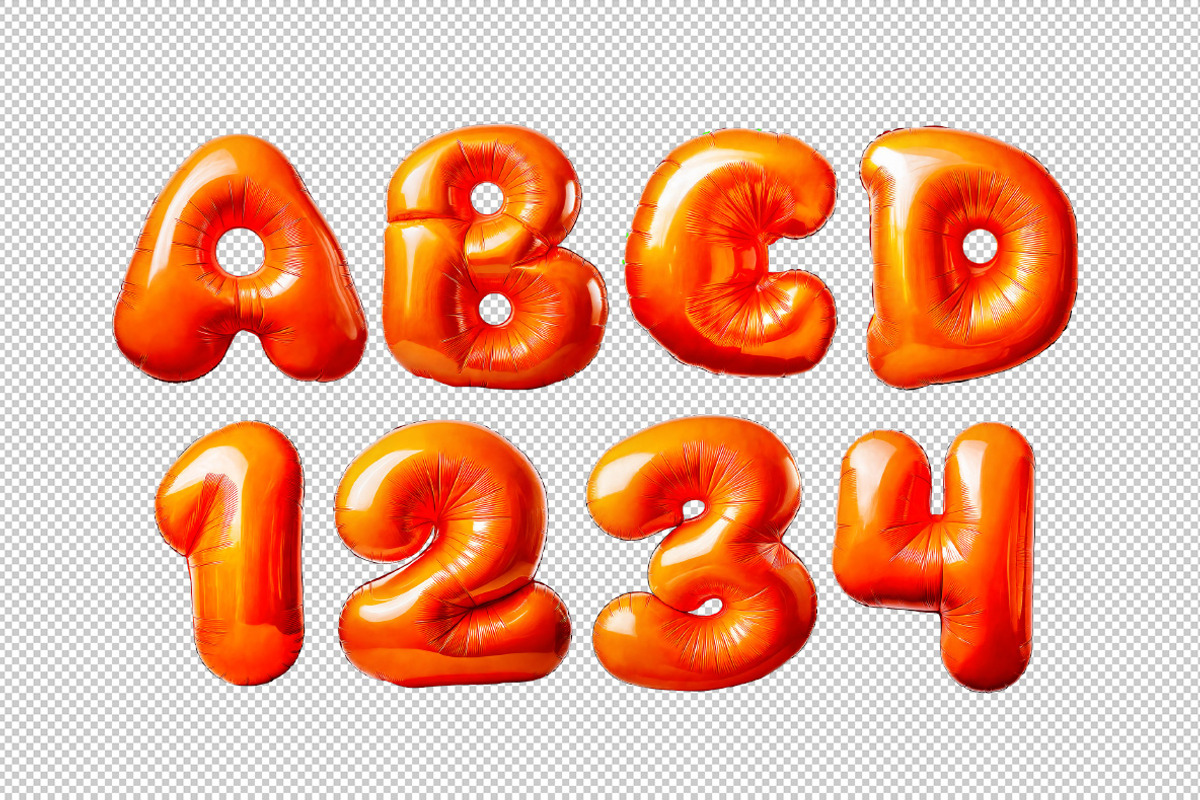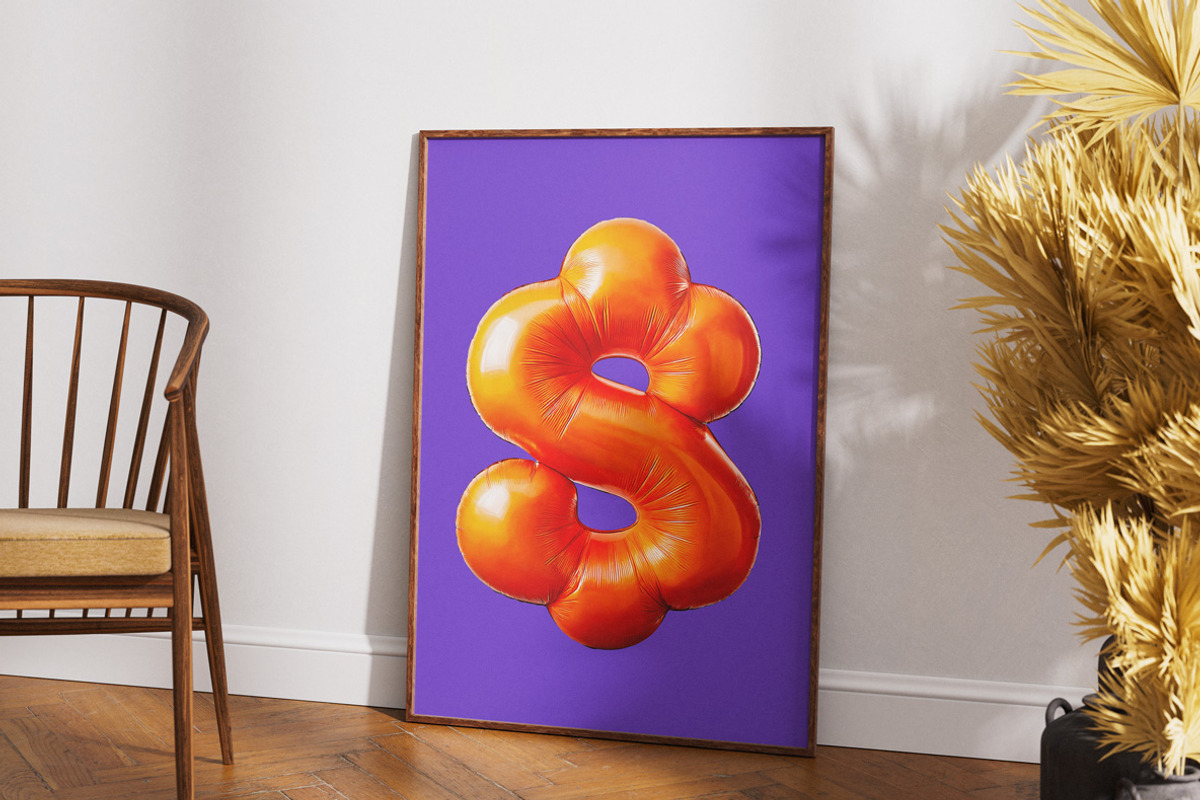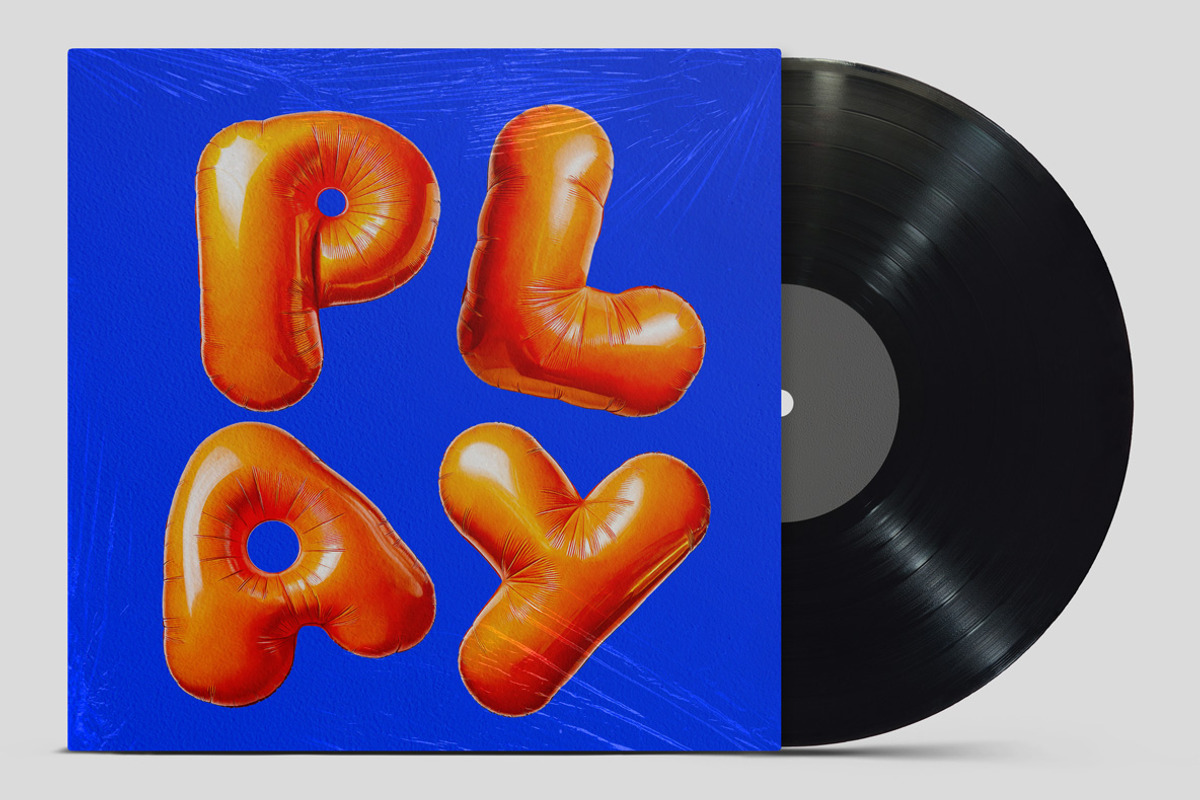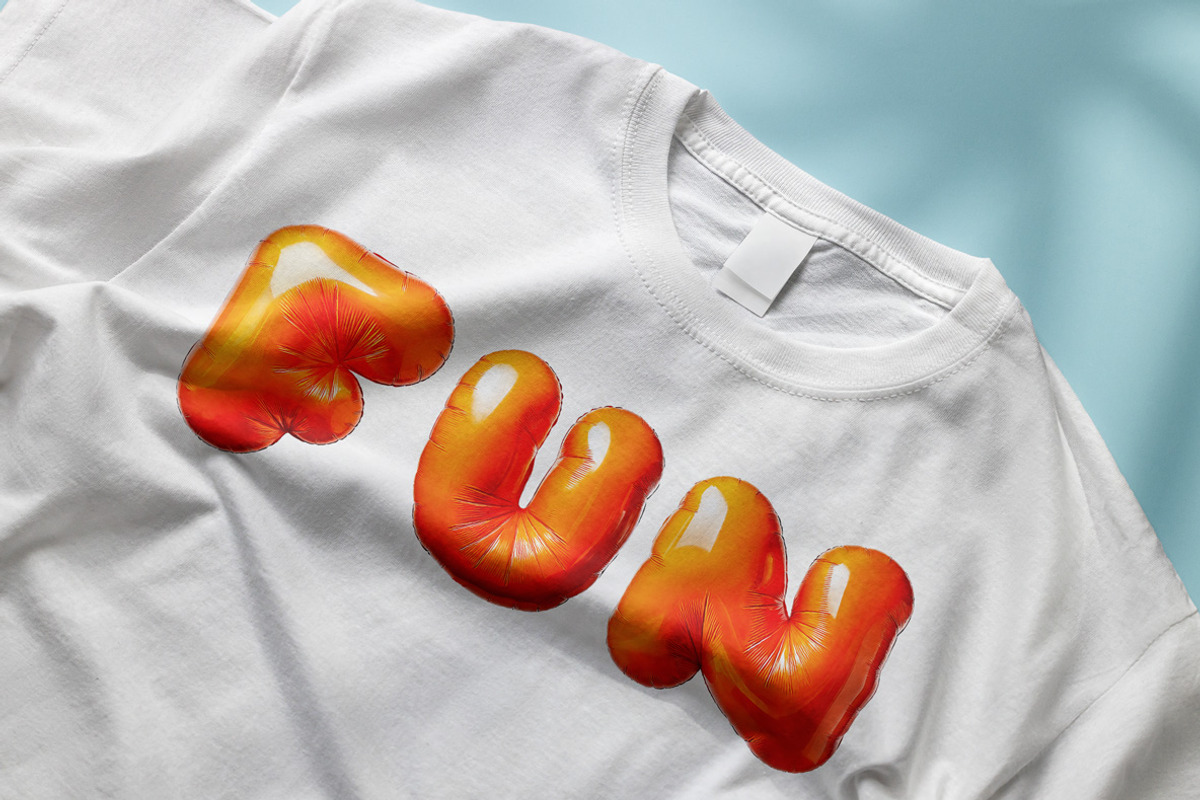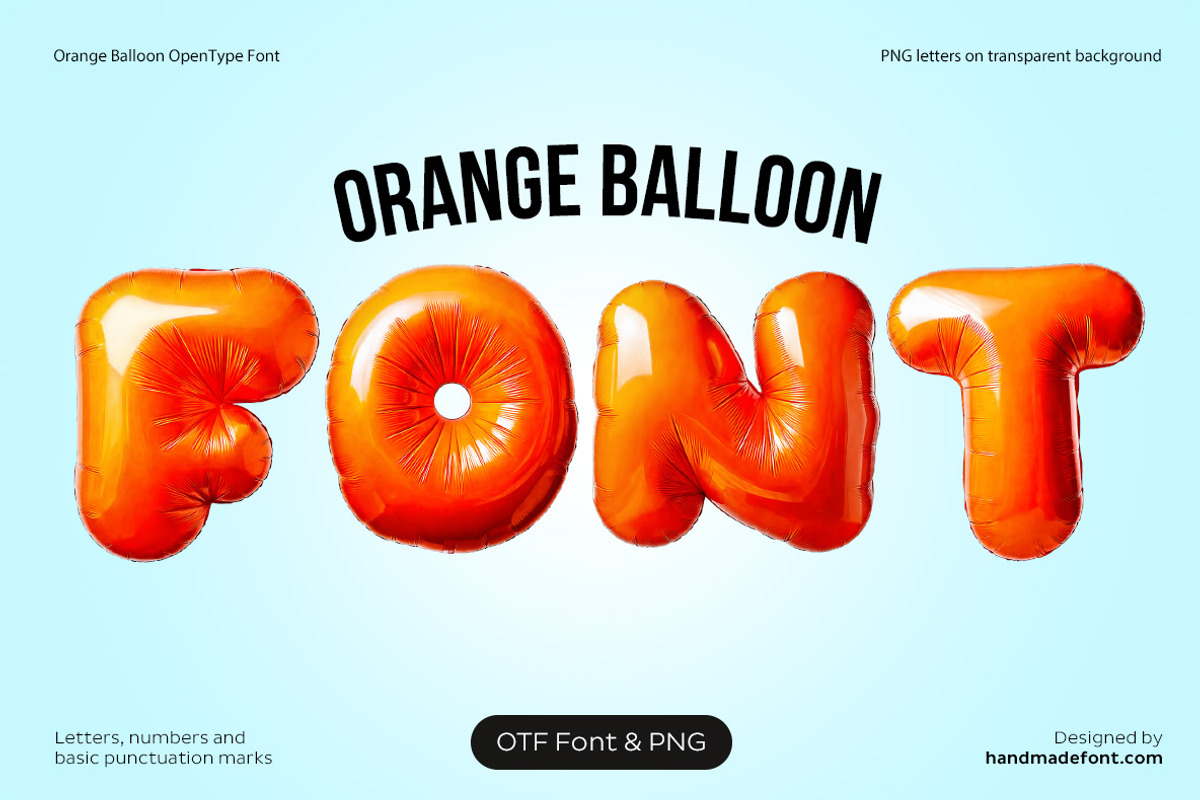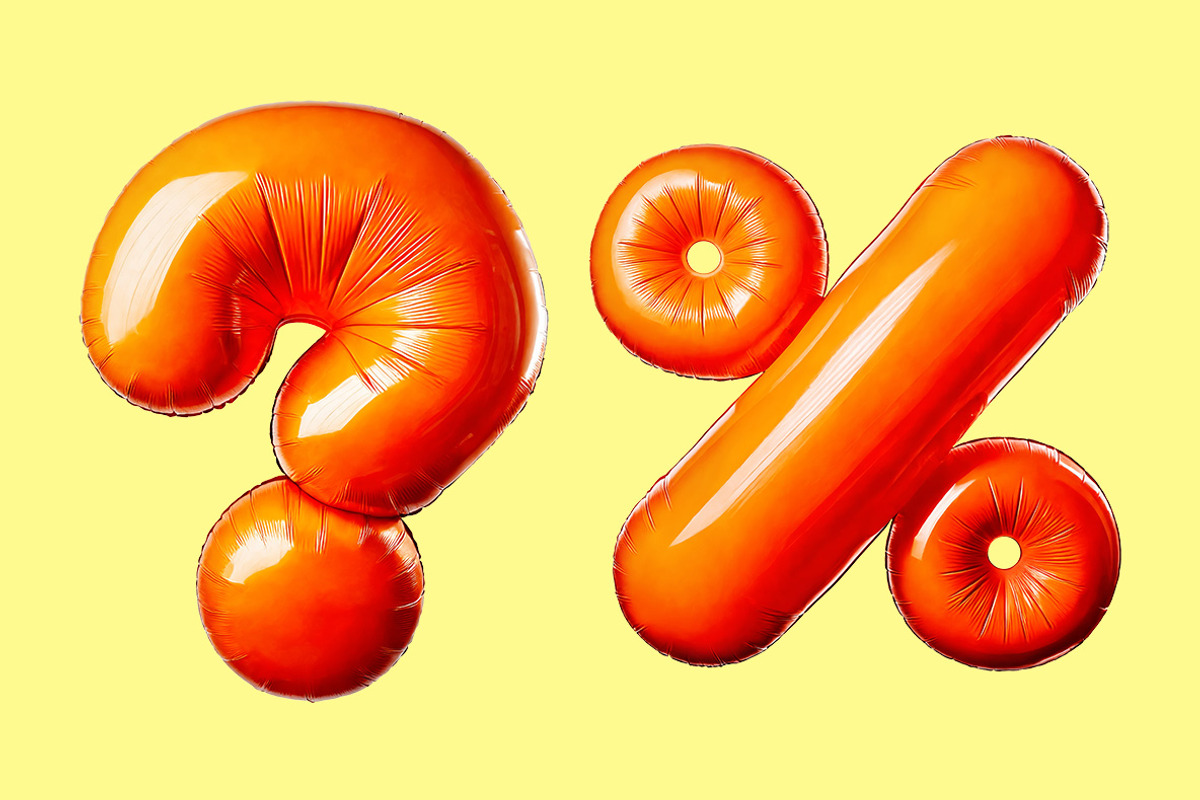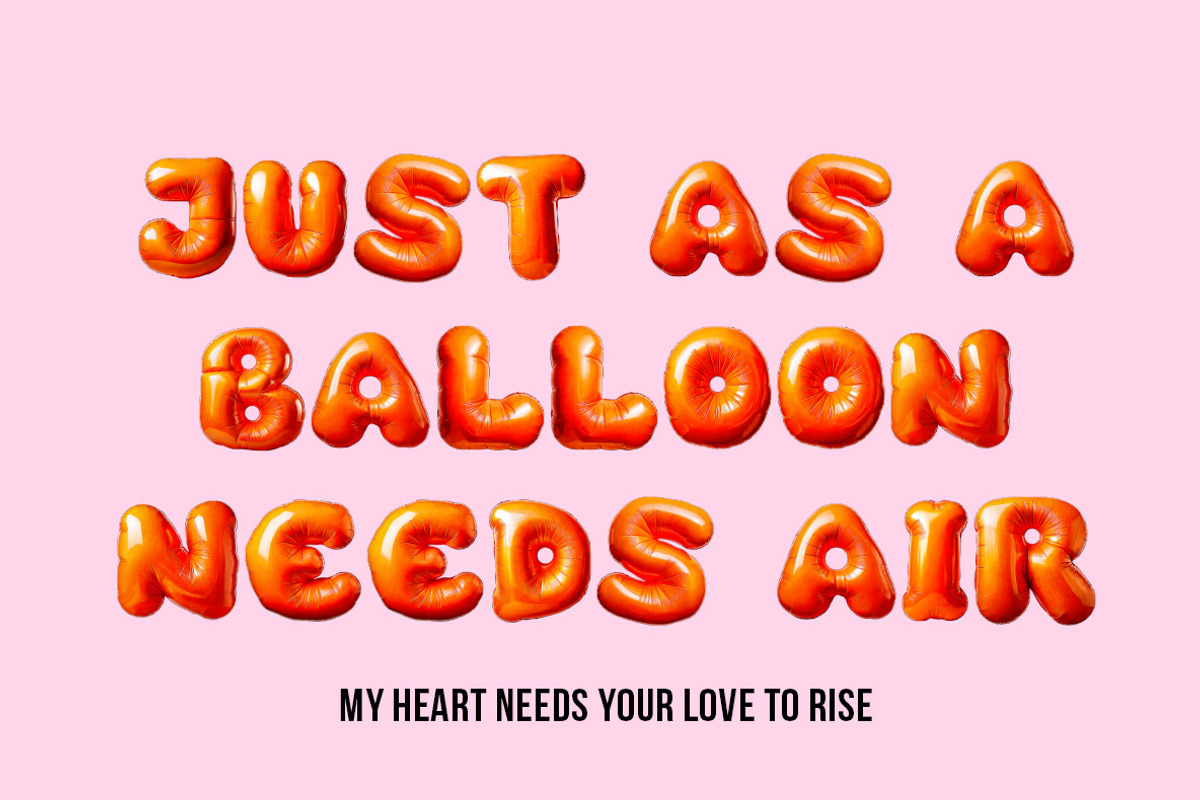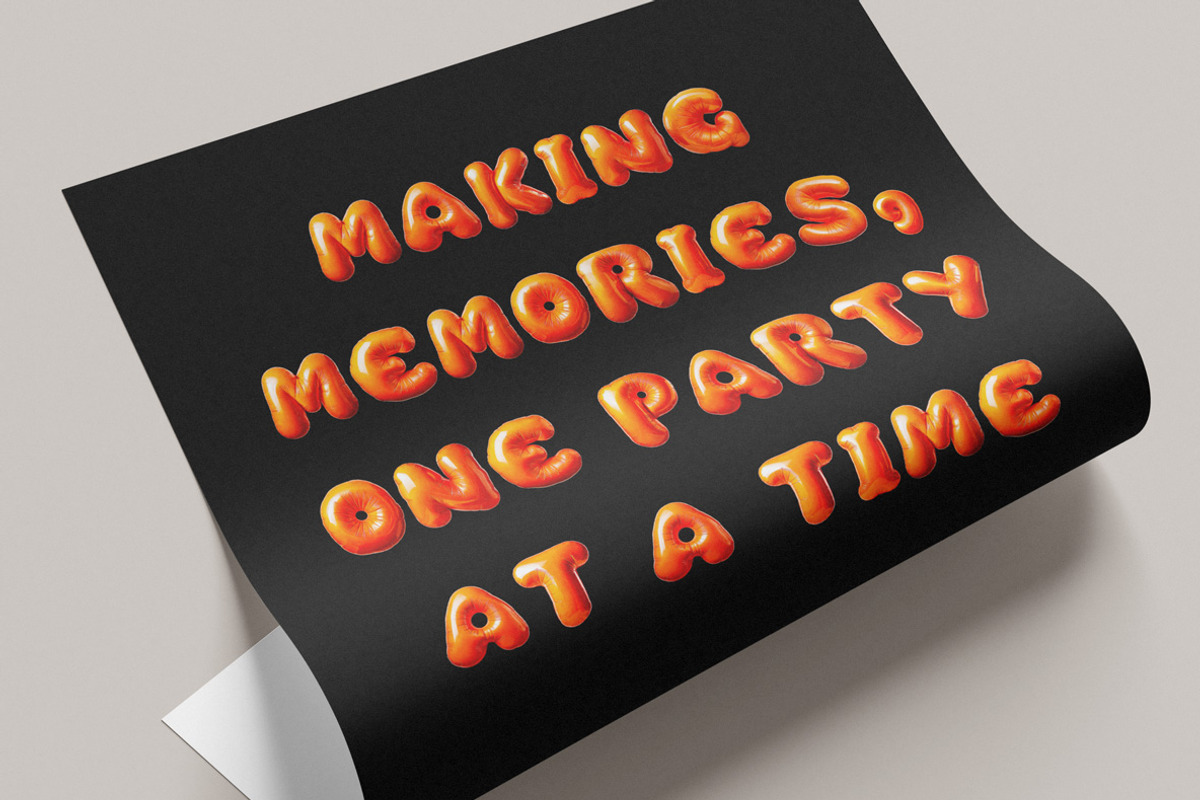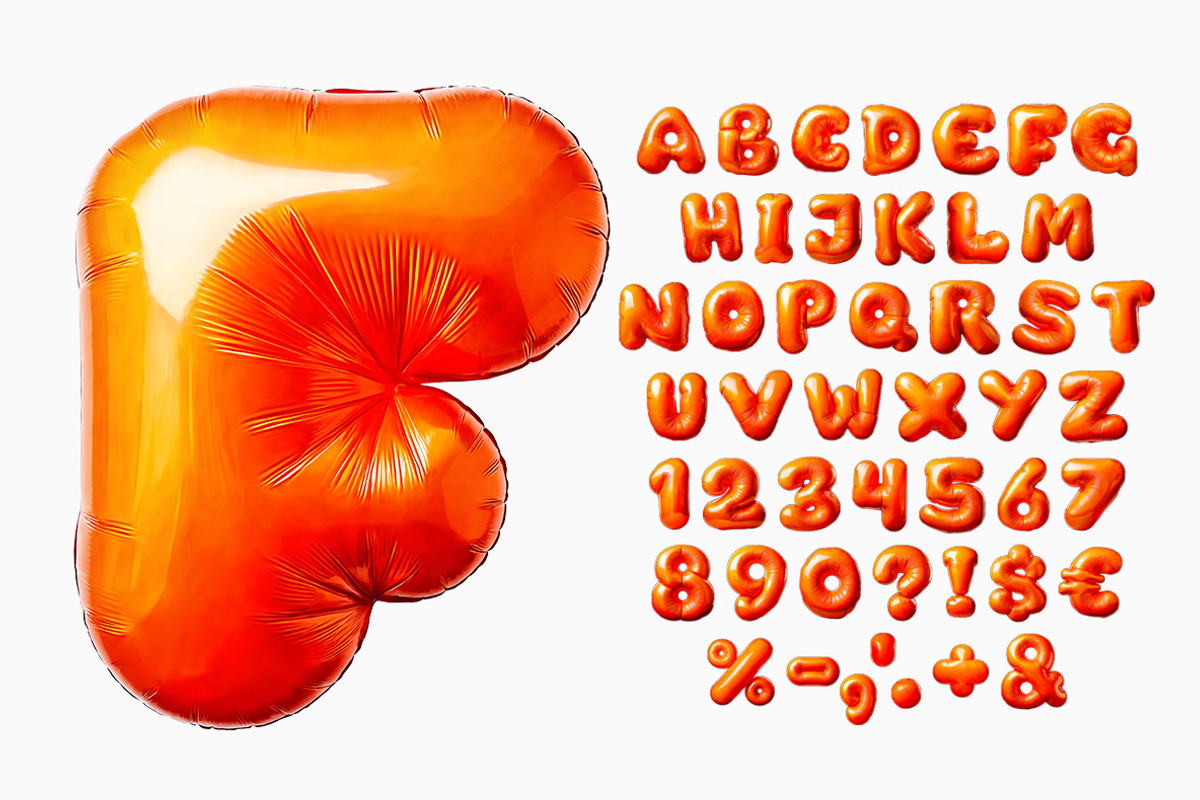
Orange Balloon Font
Brighten up your designs with the playful "Orange Balloon Font"! This fun, bouncy alphabet brings a cheerful party vibe to any project, perfect for birthdays, celebrations, and vibrant invitations. Each letter appears as a glossy, orange balloon, adding a touch of whimsy and festivity. Ideal for social media graphics, posters, and event promos, this font gives your text a joyful, lighthearted feel.